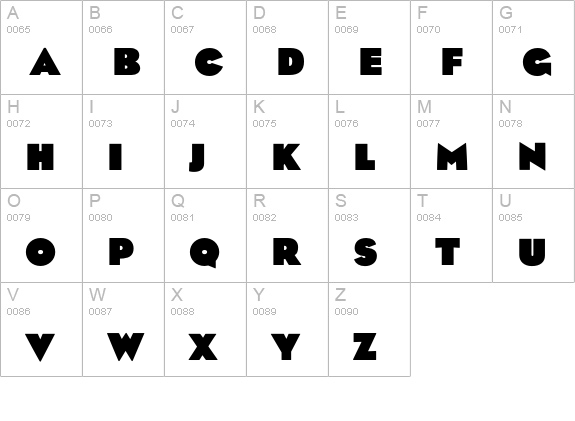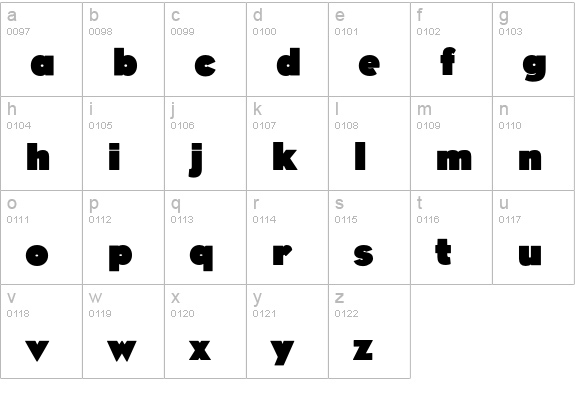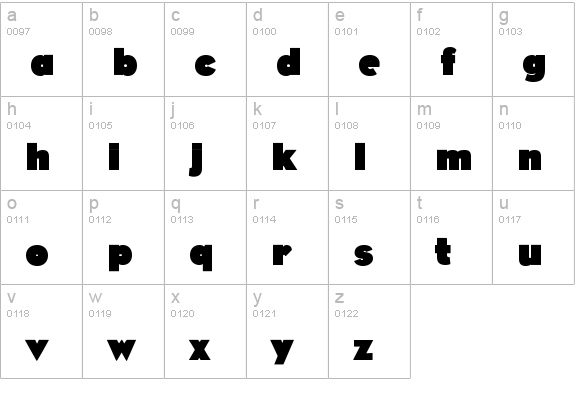
Eagle-Black is a maximum-weight, dramatic variant in the Eagle typeface family \xE2\x80\x94 well suited to maximum-impact headlines, posters, and packaging.
Eagle-Black font is a stunning display typeface that exudes power and elegance. With its bold and commanding letterforms, it is perfect for making a strong visual impact in headlines, logos, and other design projects. This font features sleek and sharp lines, giving it a modern and sophisticated look. What sets Eagle-Black font apart is that it is not only visually striking but also available for free. That's right, you can easily download this font for free at FontsMarket.com. Whether you're a professional designer or someone looking to add a touch of style to their personal projects, this font offers the perfect balance of creativity and accessibility. With its versatile nature, Eagle-Black font can be used across various design applications. From advertising materials to social media graphics, this font lends a sense of authority and professionalism to any project. Its strong presence on the page grabs attention and leaves a lasting impression. The attention to detail in Eagle-Black font is evident in its carefully crafted letterforms. Each character is meticulously designed to ensure legibility and readability, even at small sizes. This makes it an ideal choice for both print and digital designs, guaranteeing that your message will be effectively communicated to your audience. So why wait? Experience the power and beauty of Eagle-Black font today, and unleash your creativity with this exceptional typeface. Remember, it's completely free to download at FontsMarket.com, so there's no reason not to give it a try. Elevate your designs with this remarkable font and make a lasting impact.